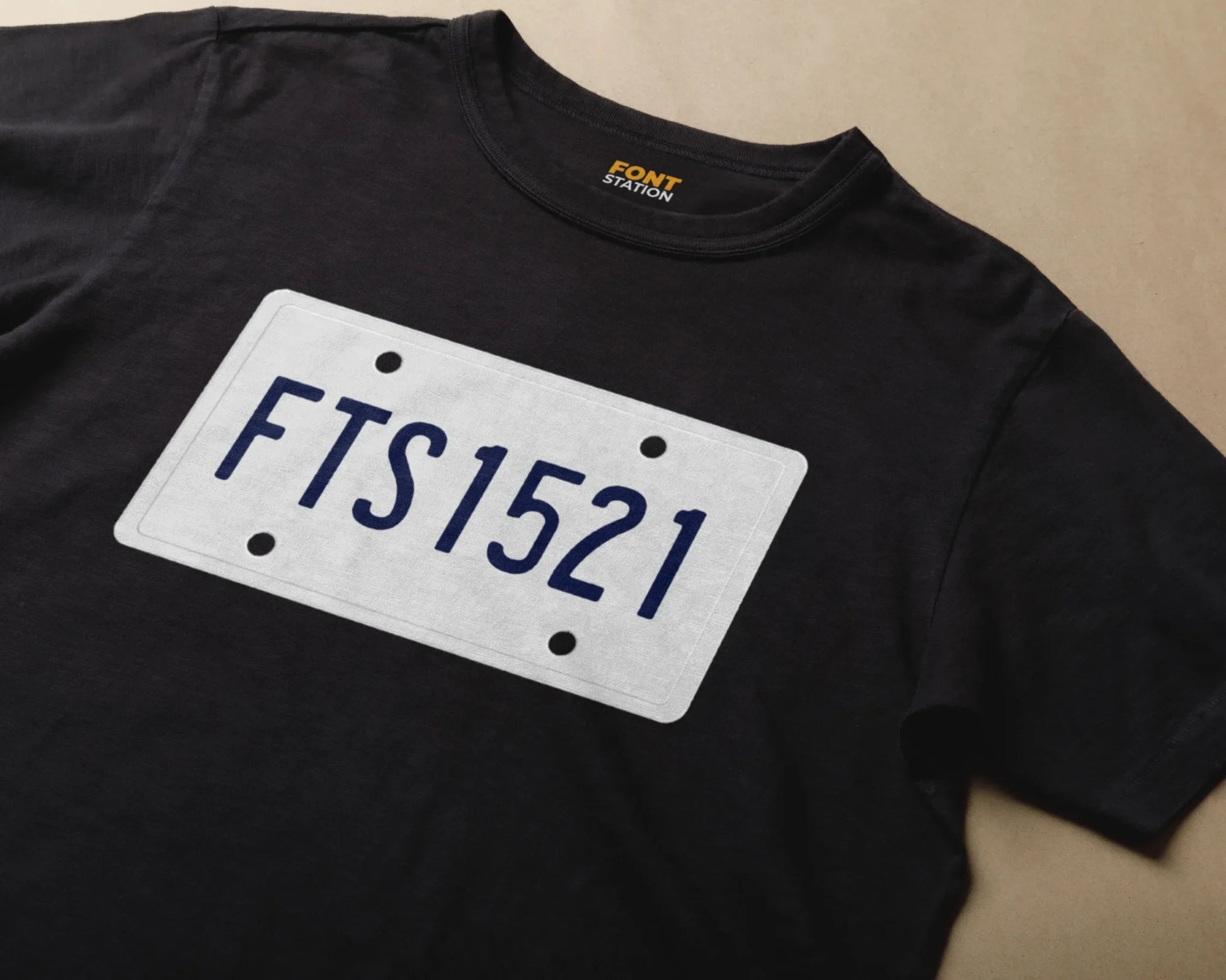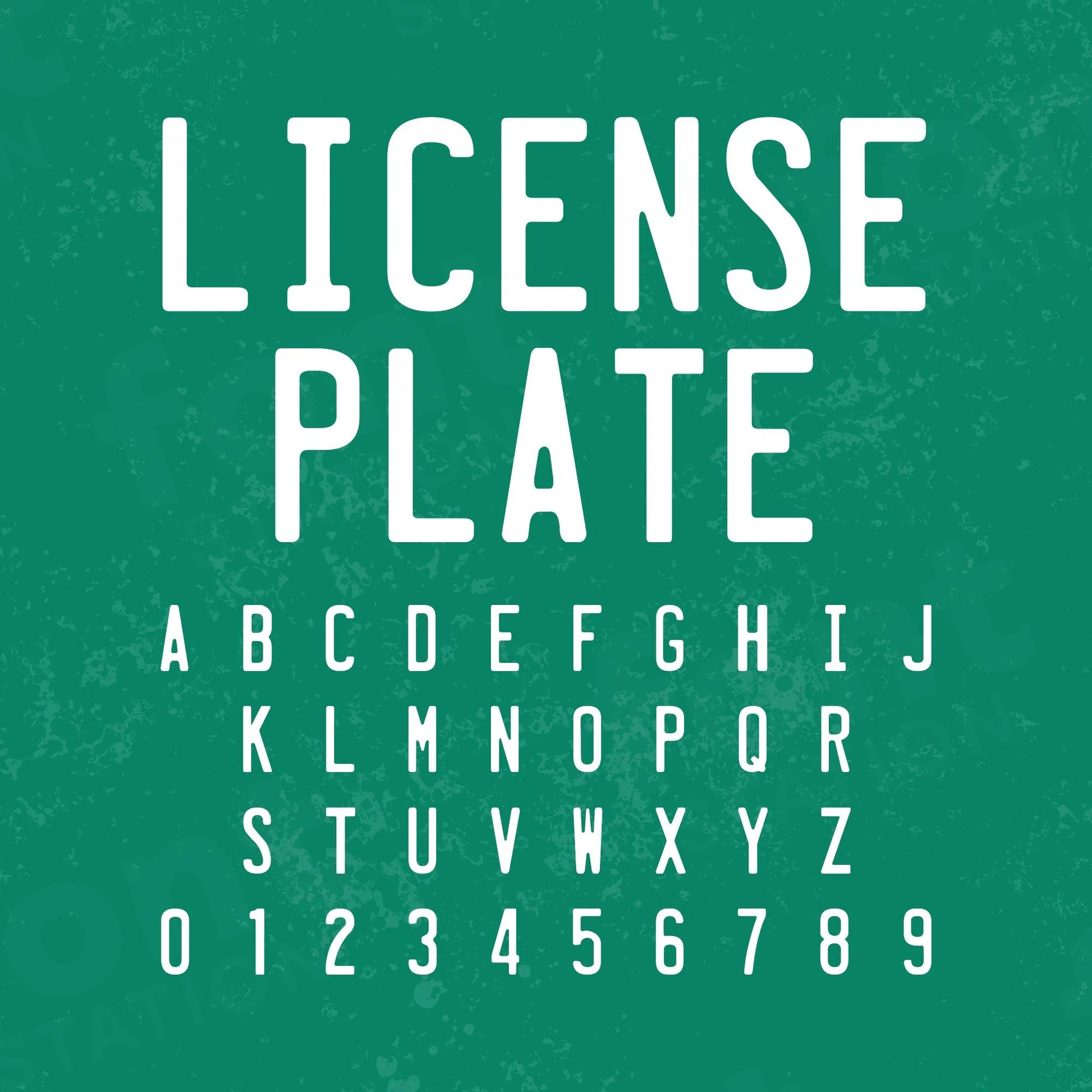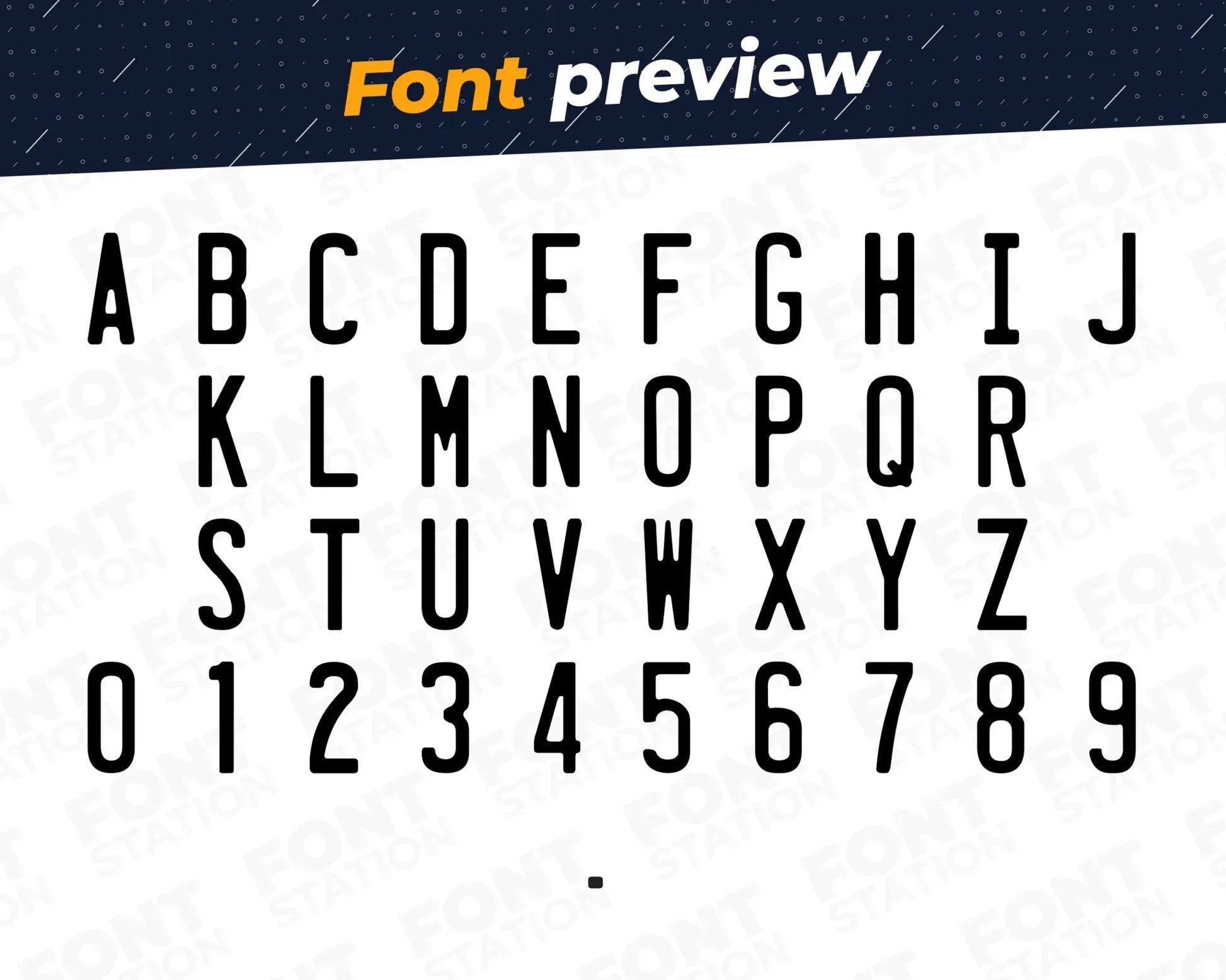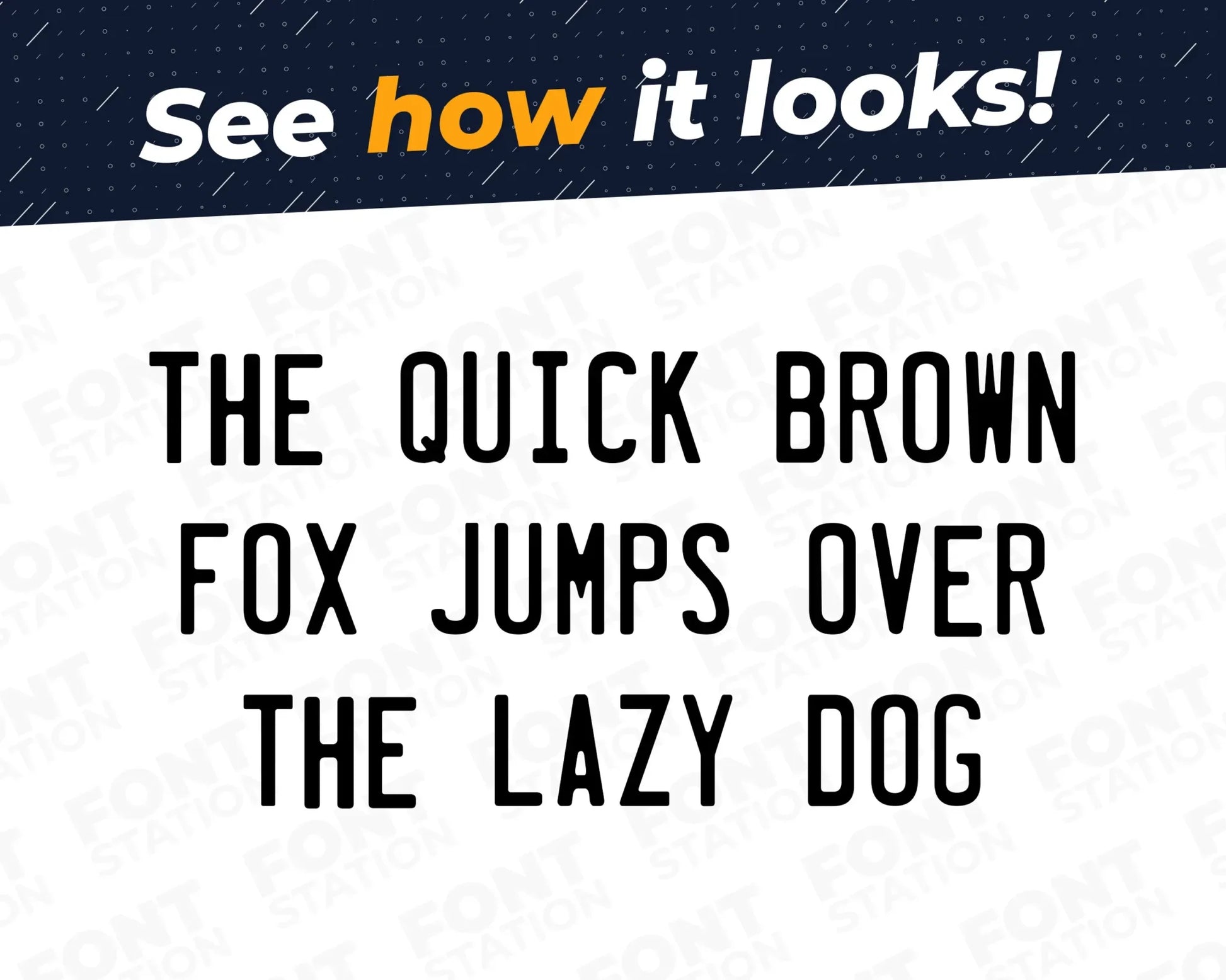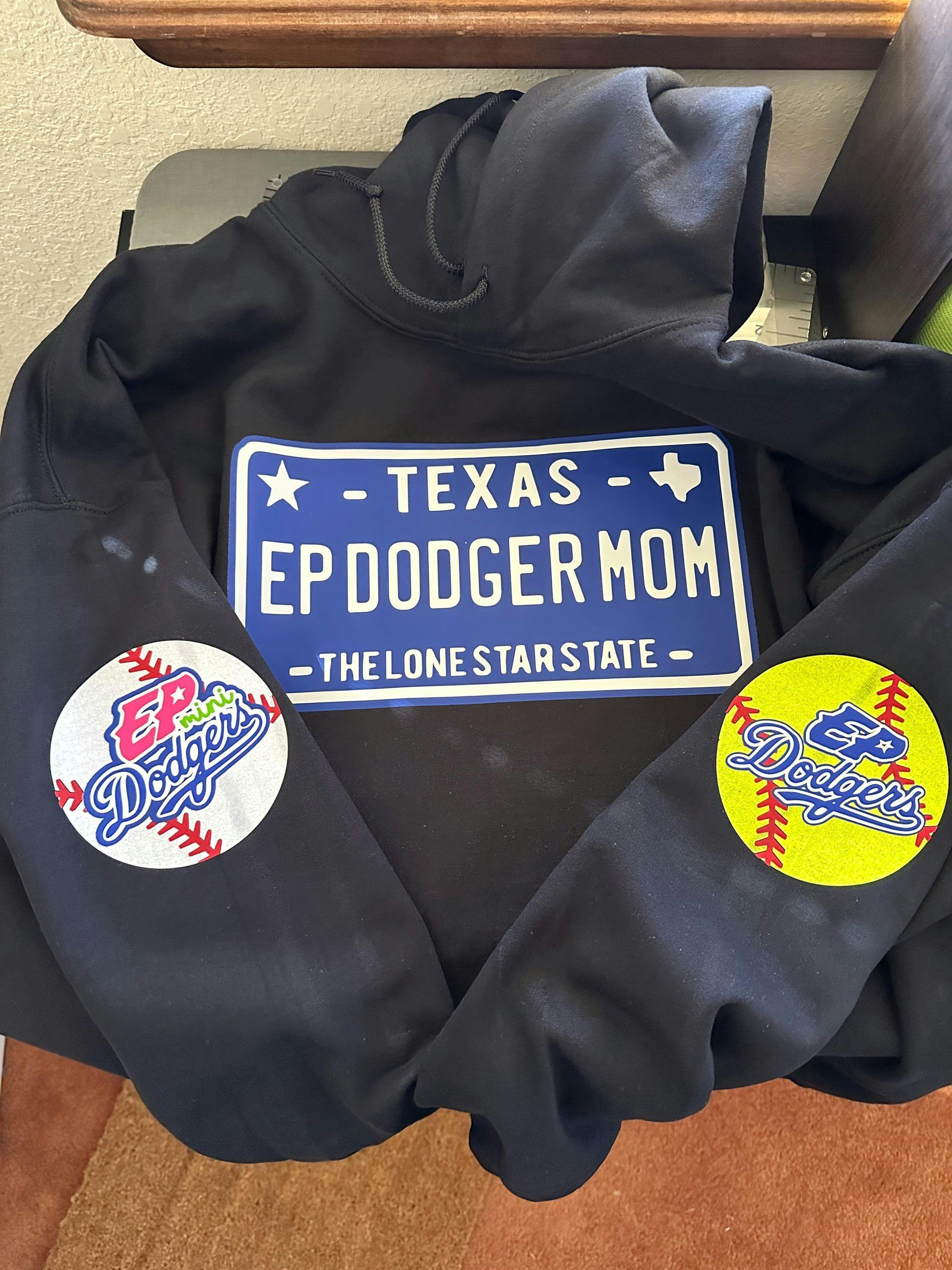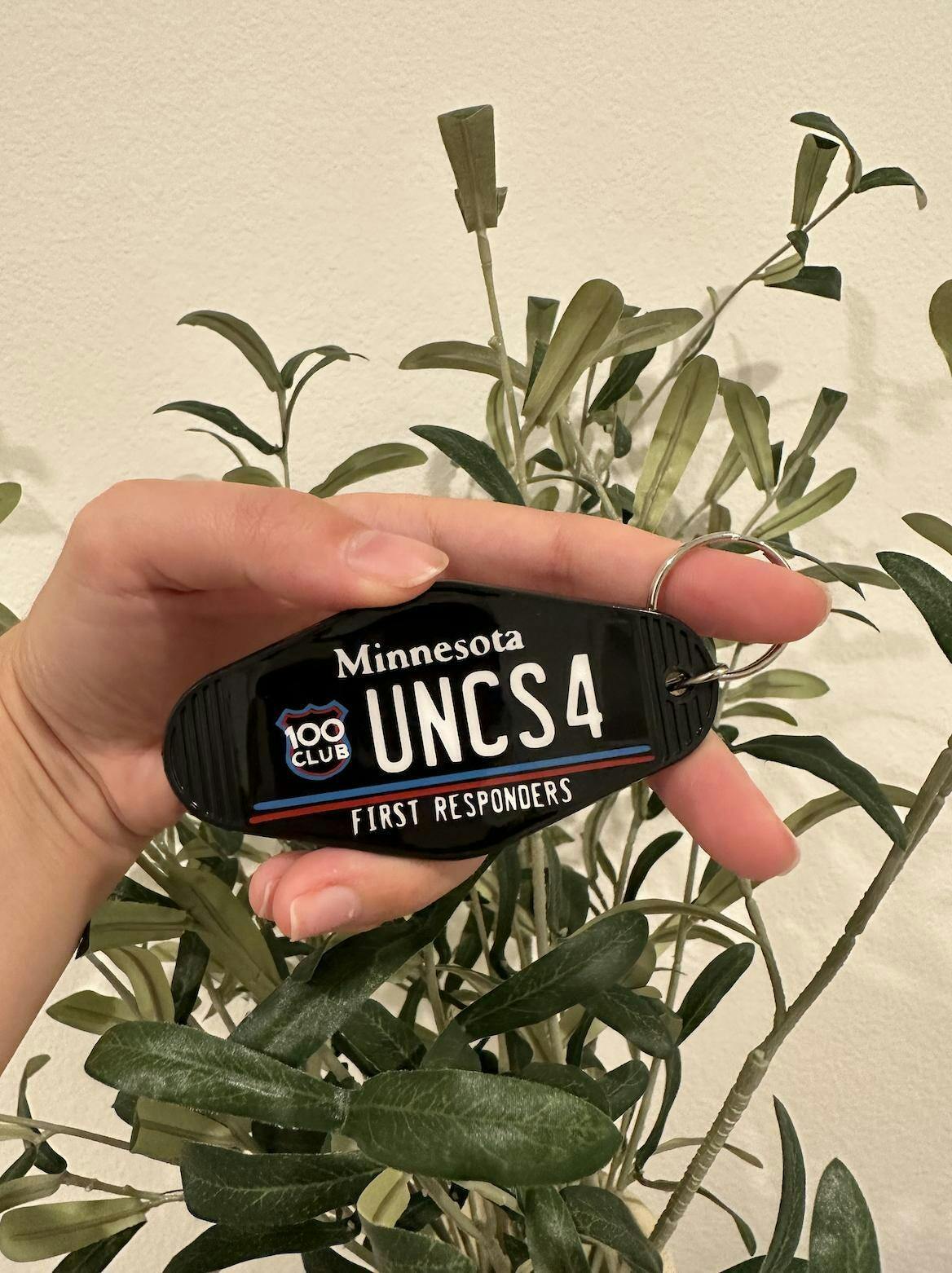
US Car License Plate Font
Our License Plate typeface, inspired from US Car License Plate font
Grab your computer, tablet or other device and start creating right now with our US Car License Plate font letters! Our License Plate typography is inspired from US Car License Plate font, making it ideal for various digital creations (logo, word...), sublimation, cake toppers, stickers, event decorations, and more.